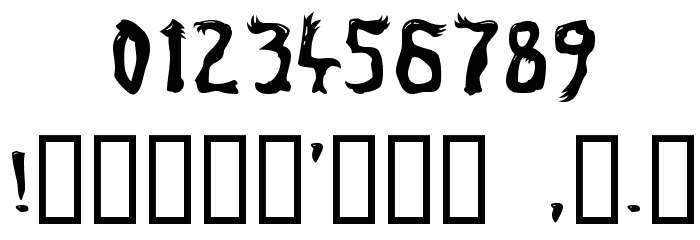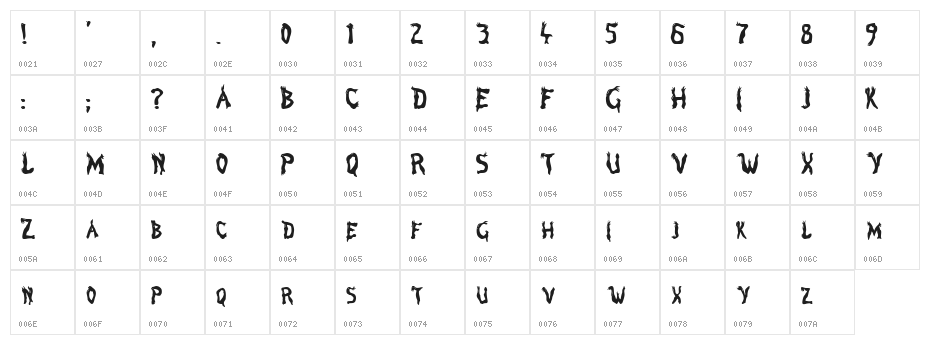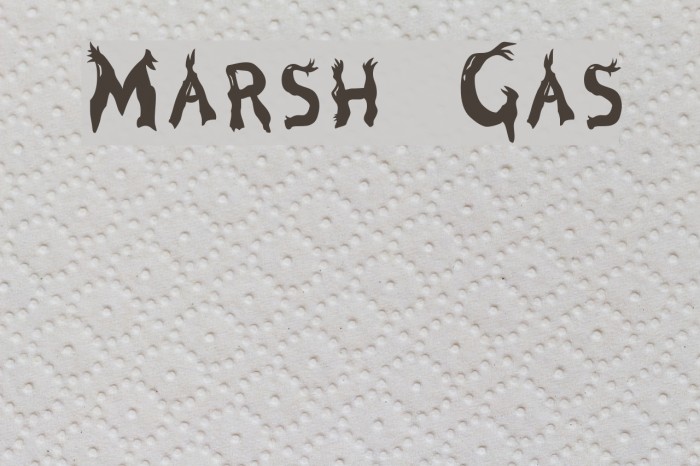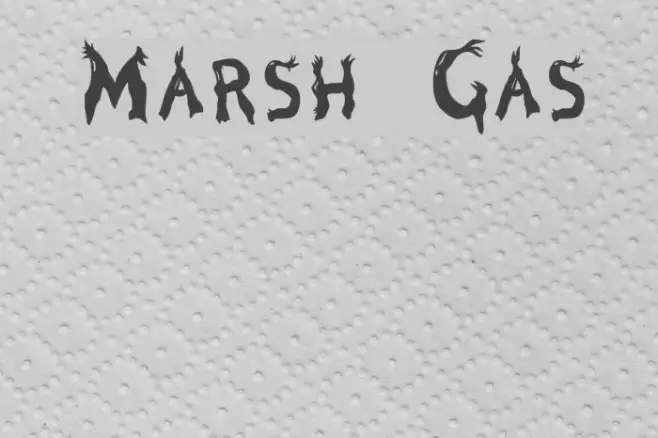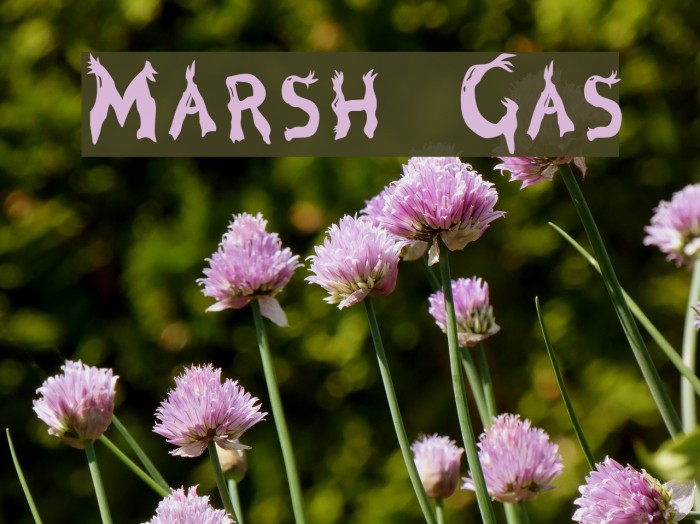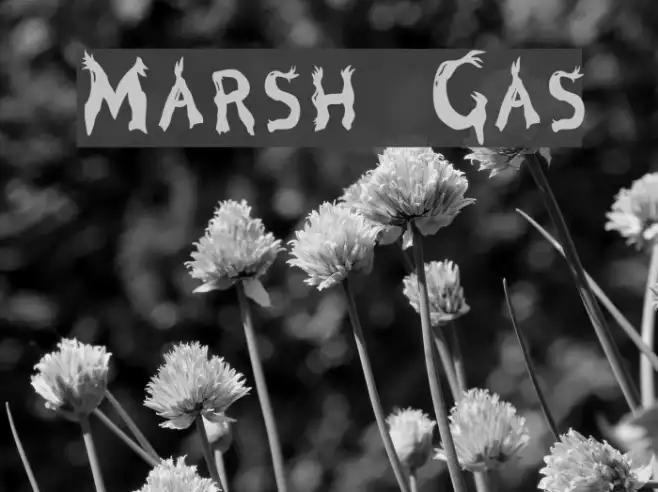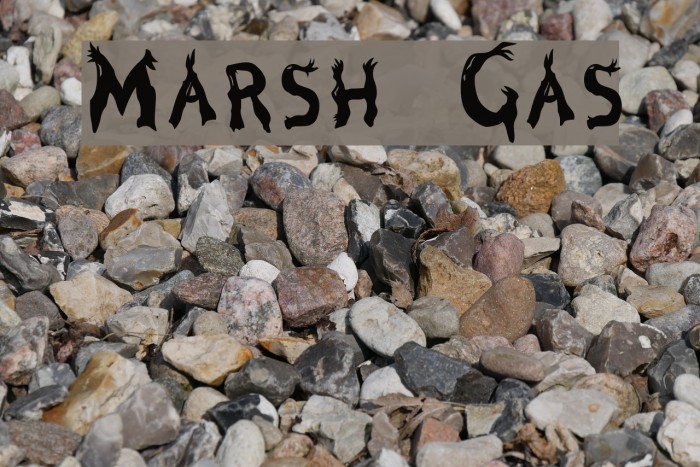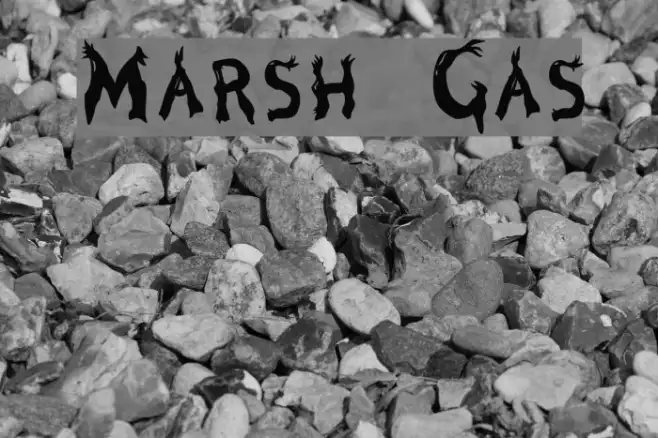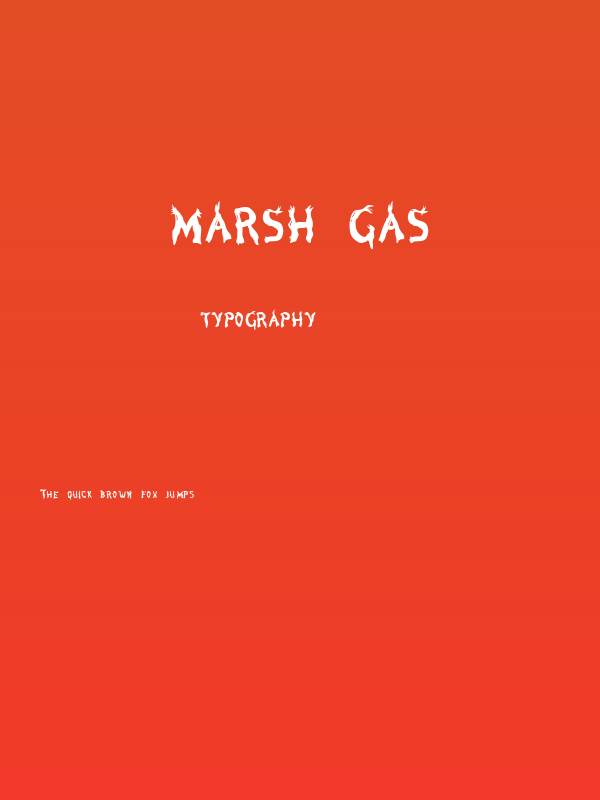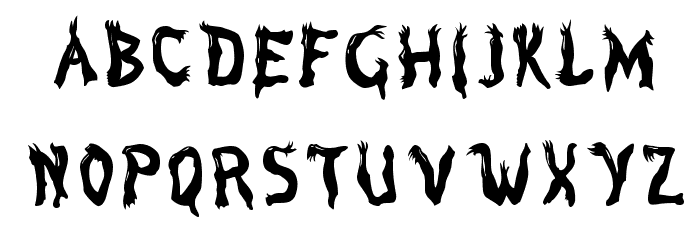
Marsh Gas Font
Marsh Gas Description
This font features a unique and eerie design, with each character appearing as if it is formed from wisps of smoke or flames. The edges are irregular and jagged, giving a sense of movement and unpredictability. The uppercase and lowercase letters maintain a consistent style, with the uppercase being slightly more pronounced. Numbers follow the same aesthetic, ensuring uniformity across all characters. The special characters are creatively integrated, adding to the overall mysterious and haunting vibe of the font.
| Proposed Projects | Ideal for Halloween-themed designs, horror movie posters, spooky event invitations, and any project requiring a touch of the macabre. |